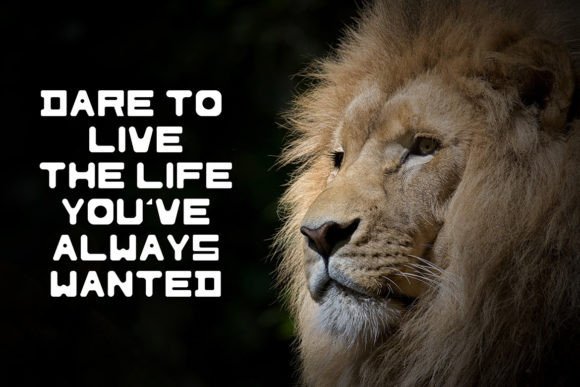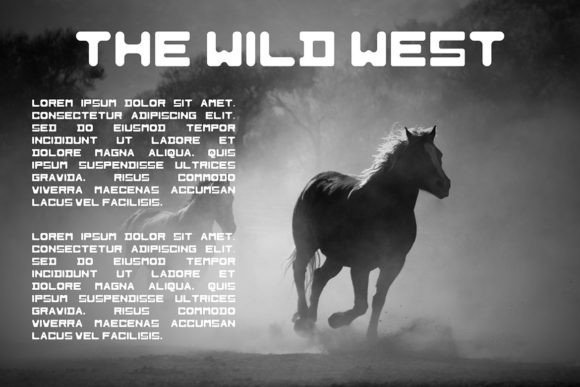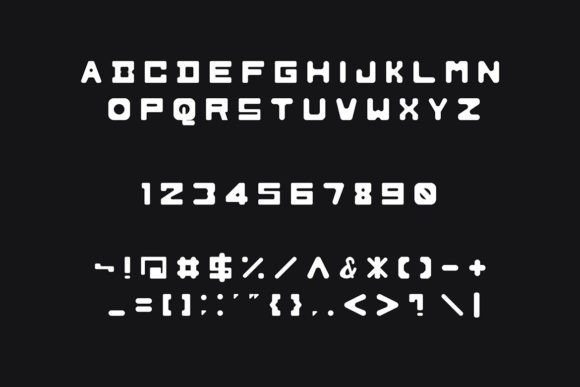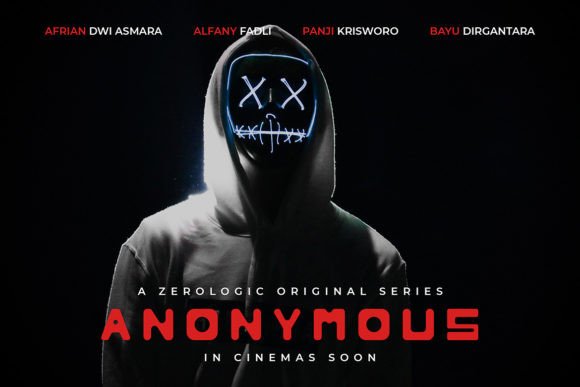
Introducing Edith Alvarado Font: The Ultimate Modern Display Font
Are you tired of using the same old fonts for your designs? Look no further! Edith Alvarado Font is here to revolutionize your typography game. This modern and stylish display font is perfect for designers and crafters who want to add a touch of elegance and sophistication to their work. With its incredibly distinct and timeless style, Edith Alvarado Font is sure to fall in love with.
The Story Behind Edith Alvarado Font
Edith Alvarado Font is a carefully crafted typeface that is designed to make a statement. Its unique and stylish design makes it perfect for a wide range of applications, from branding and advertising to packaging and editorial design. The font is named after its creator, Edith Alvarado, a talented designer who poured her heart and soul into creating a font that would inspire and empower others.
What Makes Edith Alvarado Font So Special?
So, what sets Edith Alvarado Font apart from other fonts out there? Here are just a few of its standout features:
- Modern and Stylish: Edith Alvarado Font boasts a sleek and contemporary design that is sure to turn heads. Its clean lines, elegant curves, and sophisticated style make it perfect for designers who want to create modern and stylish designs.
- Distinct and Timeless: Unlike other fonts that may quickly go out of style, Edith Alvarado Font has a timeless quality that ensures it will remain relevant for years to come. Its unique design makes it instantly recognizable, and its versatility ensures it can be used in a wide range of applications.
- Highly Versatile: Whether you’re designing a logo, creating a brochure, or crafting a social media post, Edith Alvarado Font is the perfect choice. Its scalability and legibility ensure it looks great in any size or context.
How to Use Edith Alvarado Font in Your Designs
Ready to fall in love with Edith Alvarado Font? Here are some tips on how to use it in your designs:
- Pair it with Other Fonts: Edith Alvarado Font pairs perfectly with other fonts to create stunning contrast and visual interest. Try pairing it with a sans-serif font for a modern look or a serif font for a more traditional feel.
- Experiment with Sizes and Styles: Don’t be afraid to experiment with different sizes and styles of Edith Alvarado Font. Its versatility ensures it looks great in any size or context, from large headlines to small body text.
- Use it for Branding and Advertising: Edith Alvarado Font is perfect for branding and advertising applications, from logos and taglines to billboards and social media ads. Its unique design ensures your brand will stand out from the crowd.
Why Designers and Crafters Love Edith Alvarado Font
Edith Alvarado Font has quickly become a favorite among designers and crafters, and for good reason. Here are just a few reasons why:
- Easy to Read: Despite its stylish design, Edith Alvarado Font is highly legible and easy to read, even in small sizes.
- Customizable: With its range of styles and weights, Edith Alvarado Font can be customized to suit any design need.
- Unique and Memorable: Edith Alvarado Font has a unique and memorable design that ensures your designs will stand out from the crowd.
| Font Name | Edith Alvarado Font |
| Author | zerologicstudio |
In conclusion, Edith Alvarado Font is a modern and stylish display font that is sure to revolutionize your typography game. With its incredibly distinct and timeless style, it’s perfect for designers and crafters who want to create spectacular designs. Whether you’re designing a logo, creating a brochure, or crafting a social media post, Edith Alvarado Font is the perfect choice. So why wait? Fall in love with Edith Alvarado Font today and take your designs to the next level!